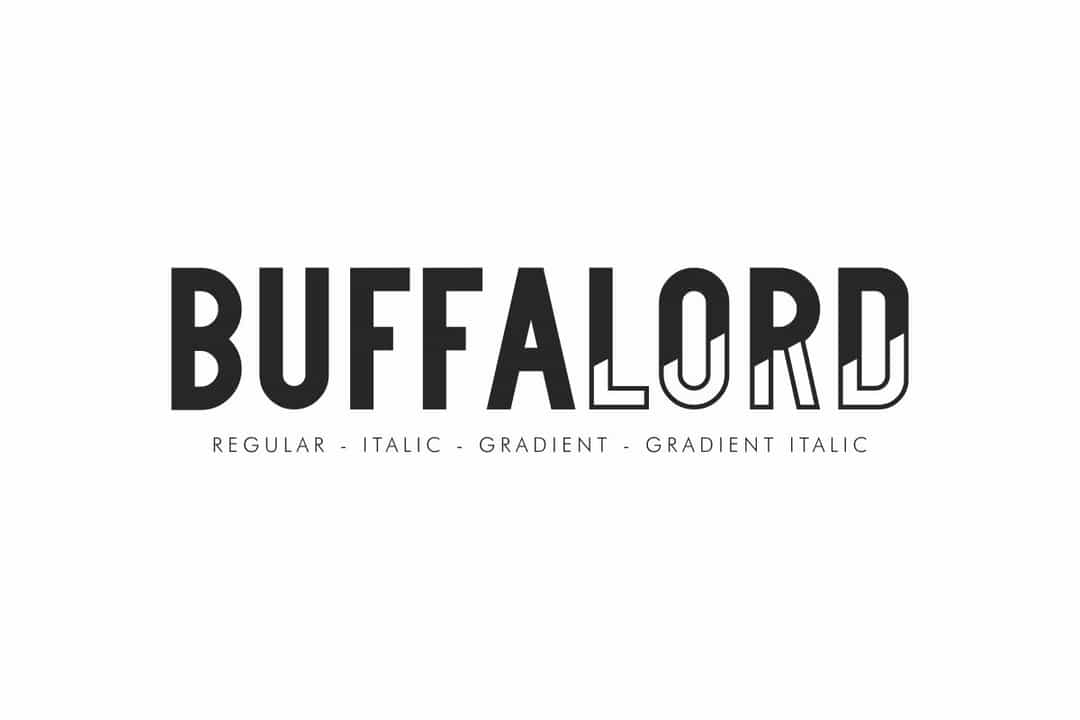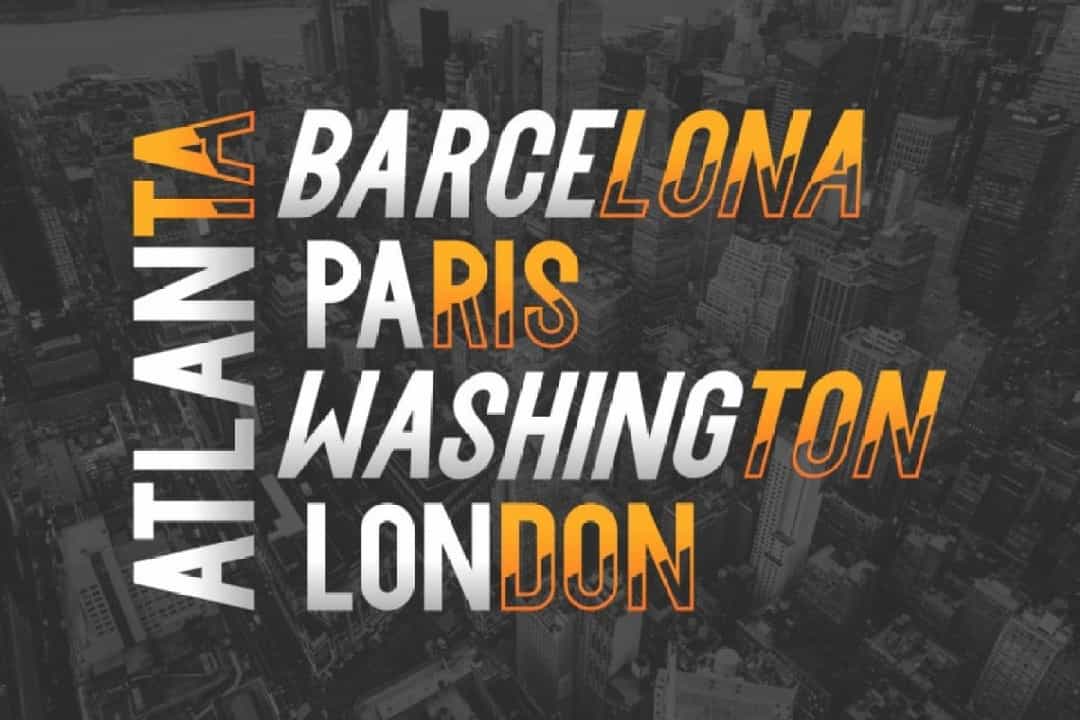
Buffalord can be characterized as a noteworthy display font of the sans-serif type, designed by NihStudio Font Designers Fajar Saepul and Suci. Buffalord is perfect for branding projects which includes characters that are extended such as logos, stationery, business cards, signs, flyers, brochure and many others.